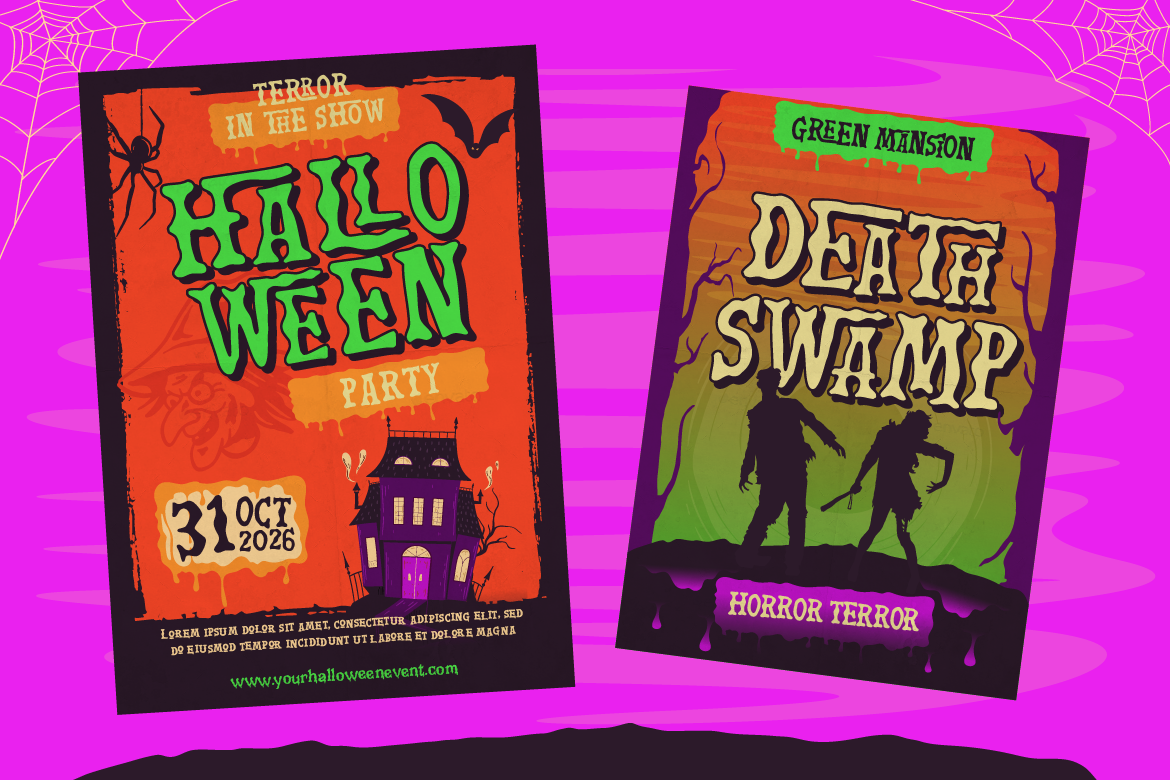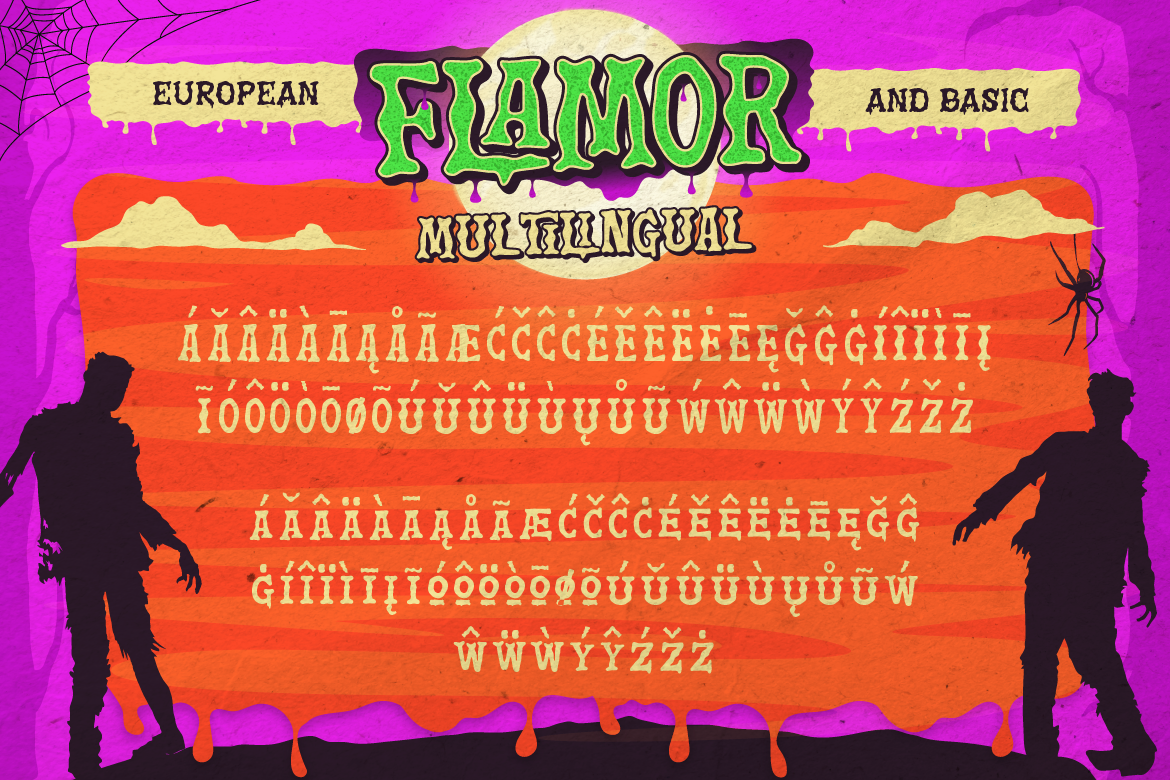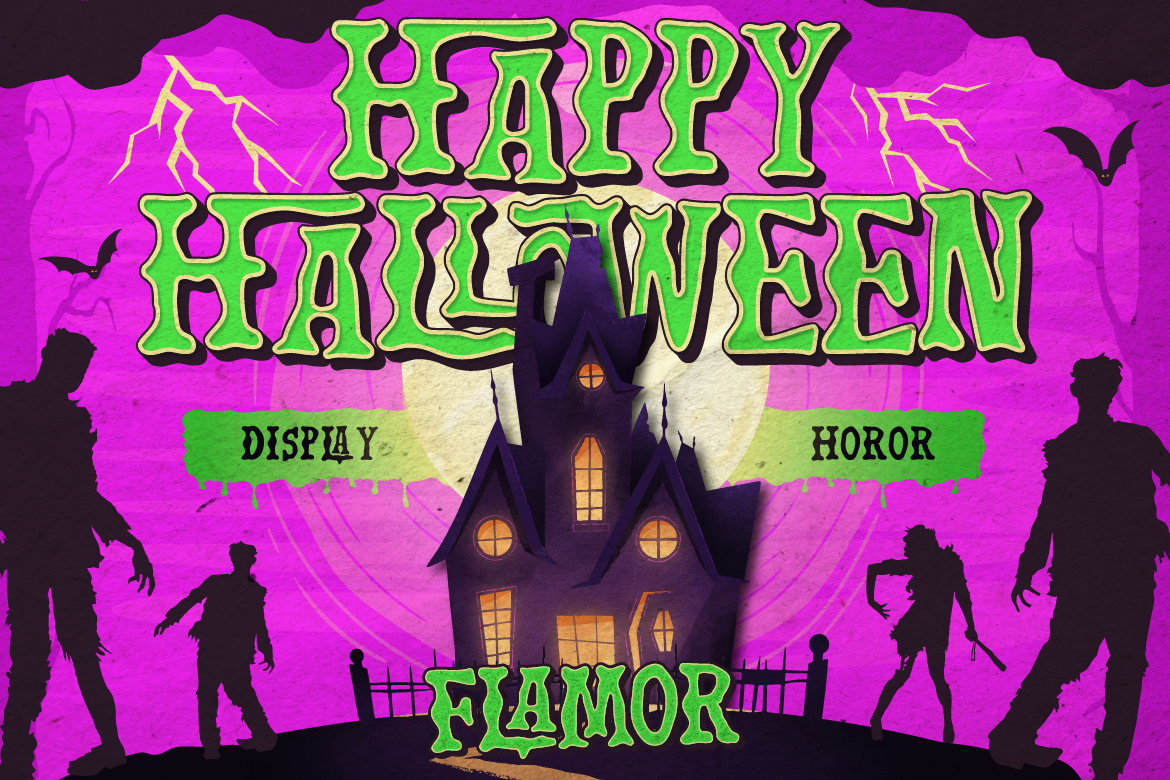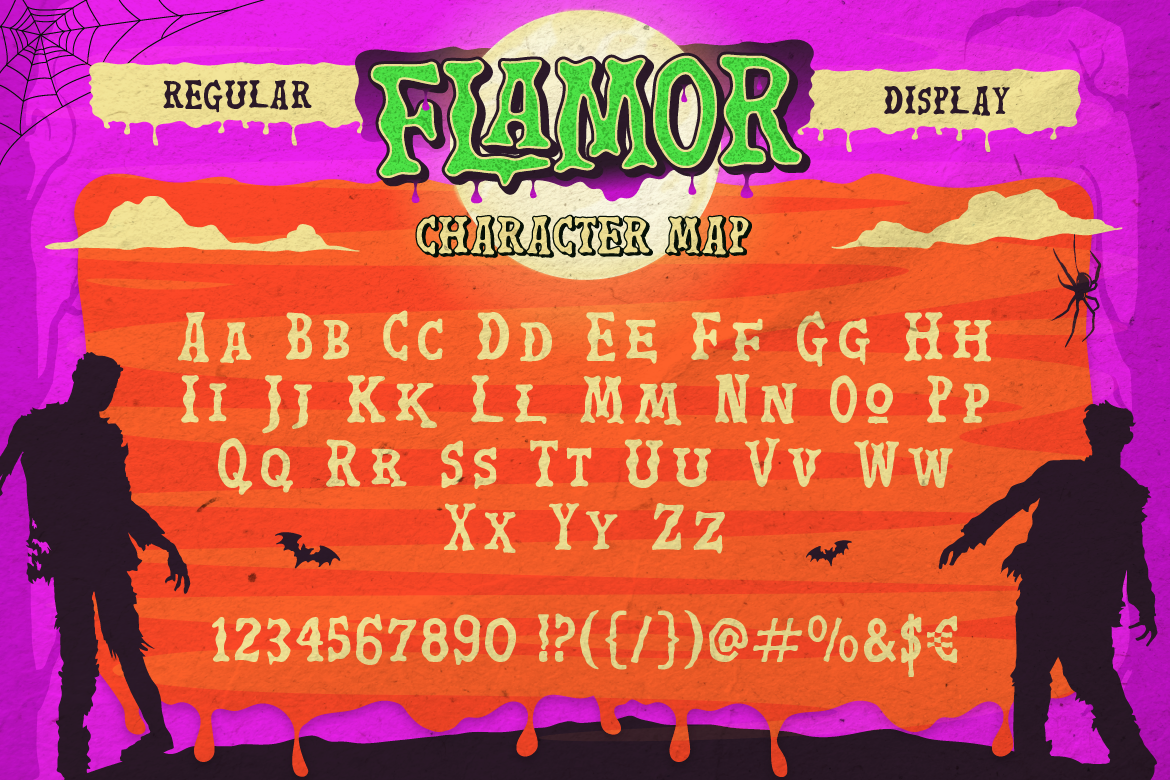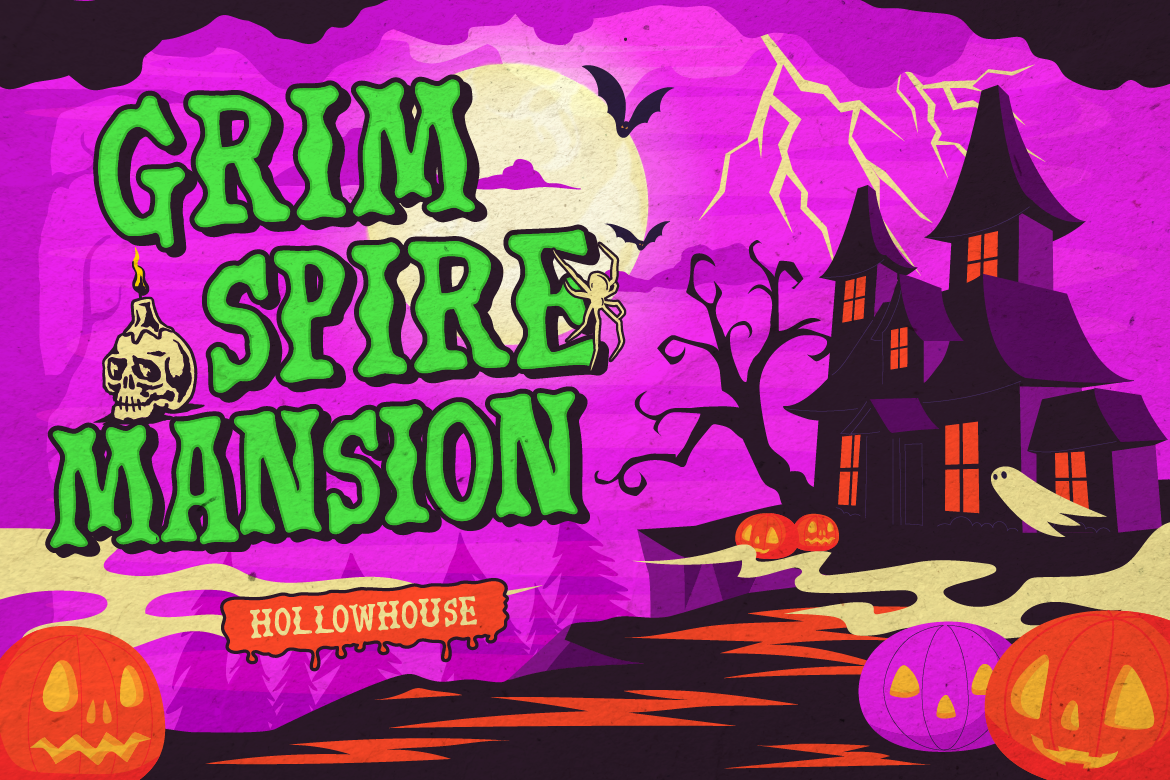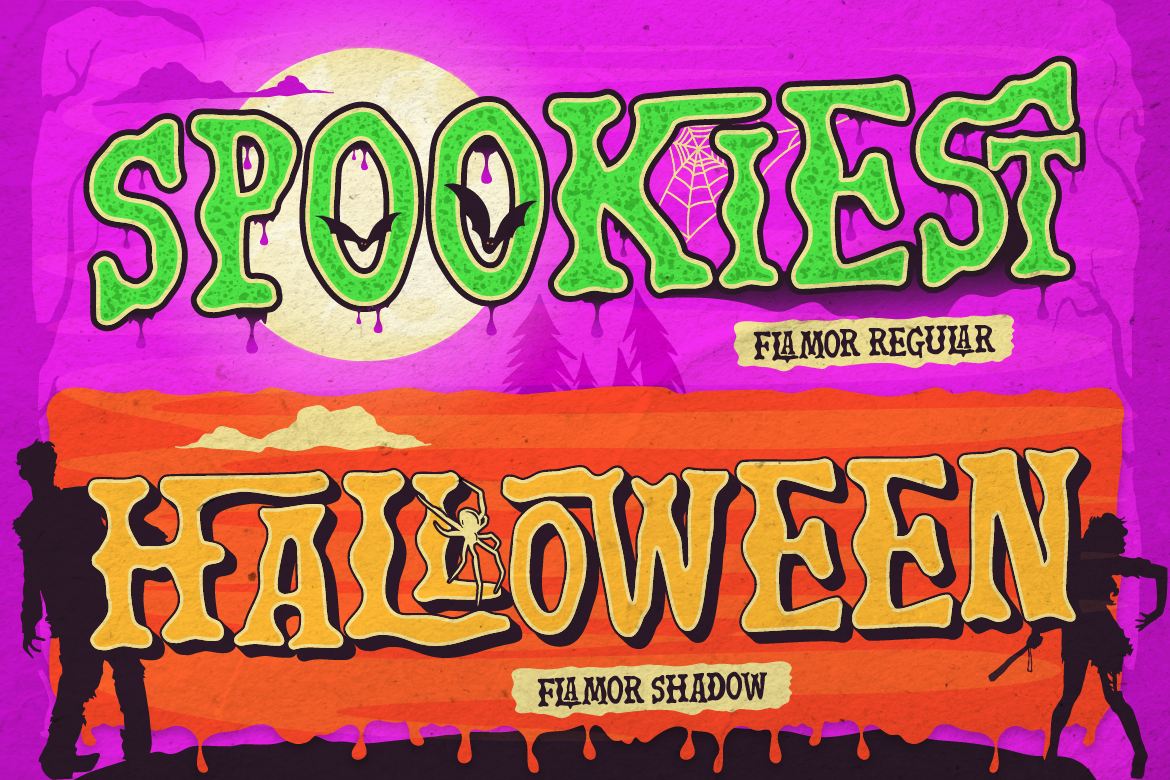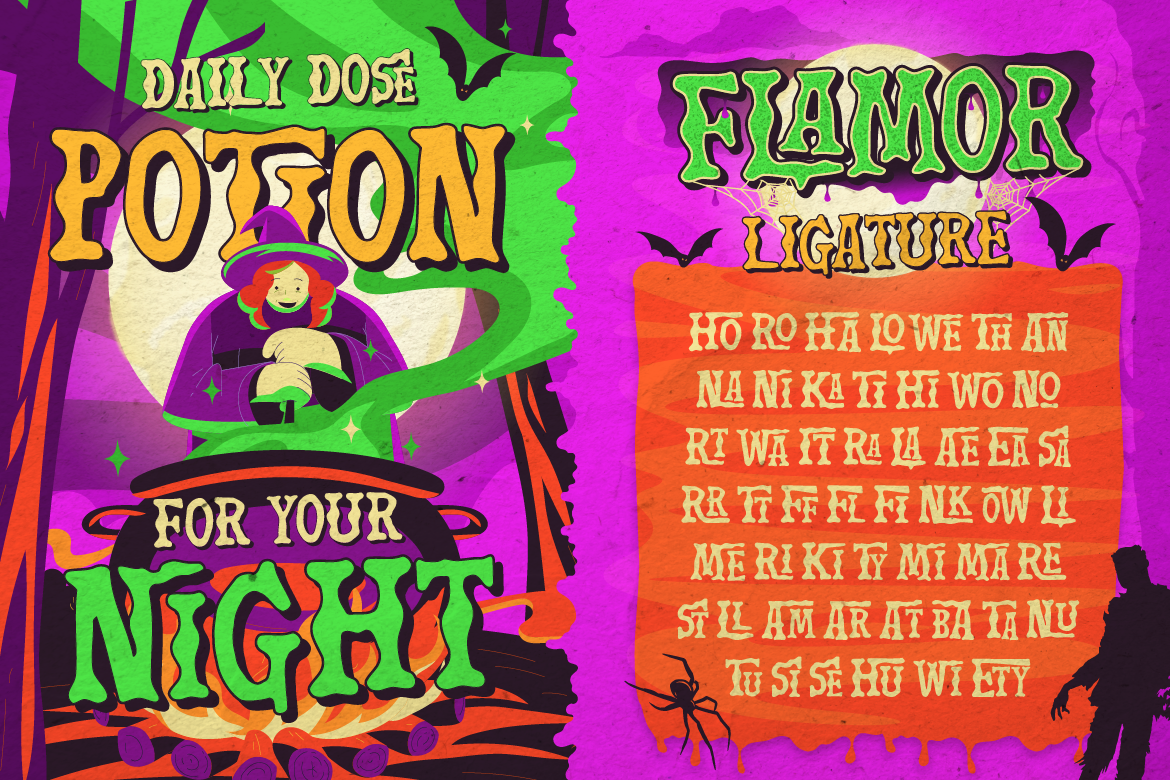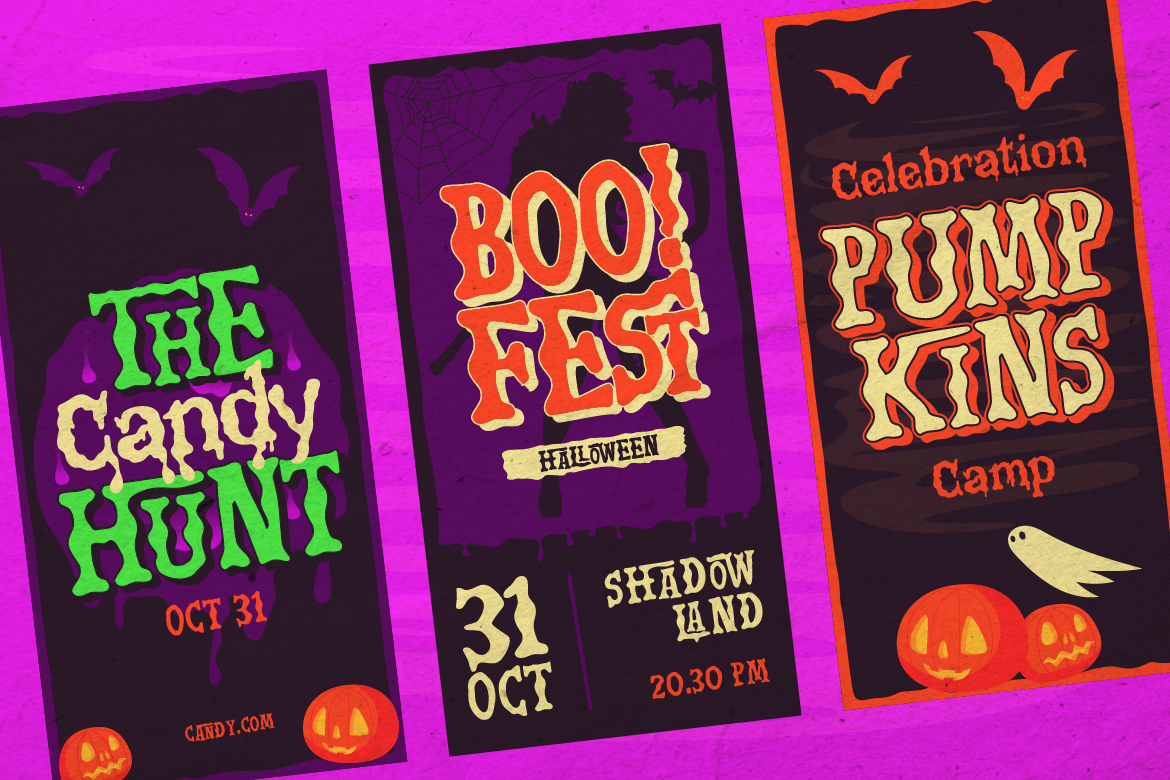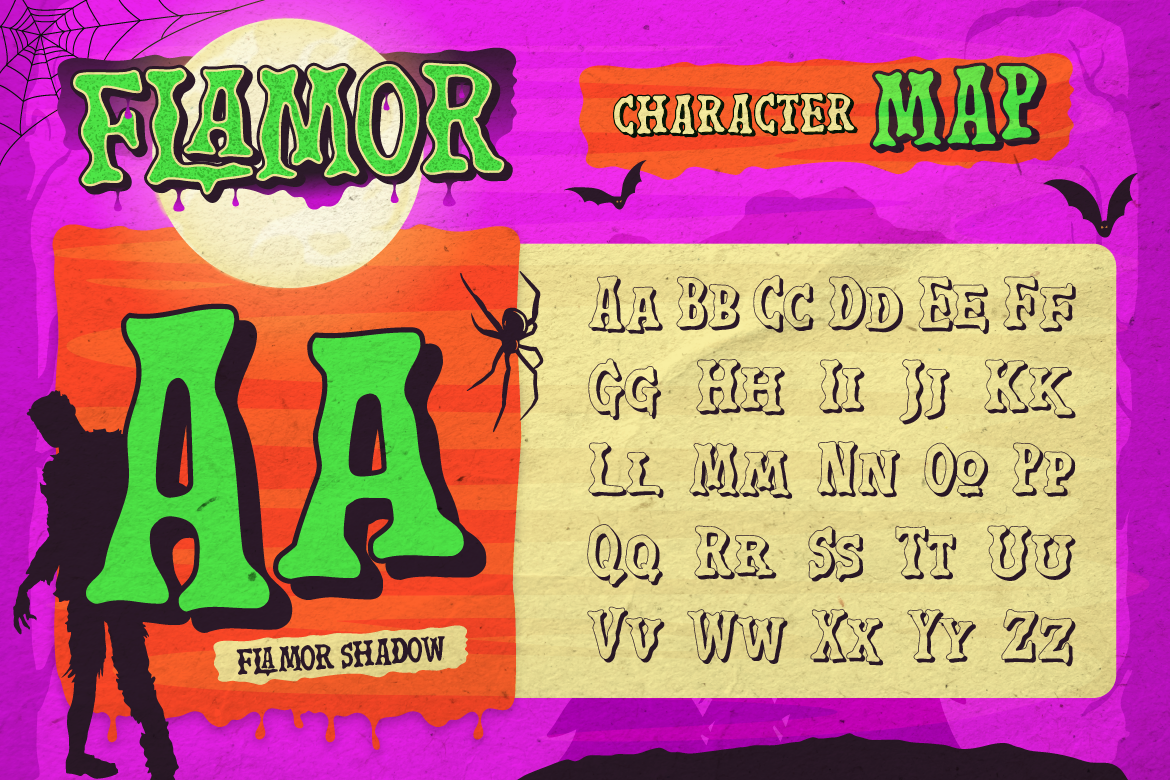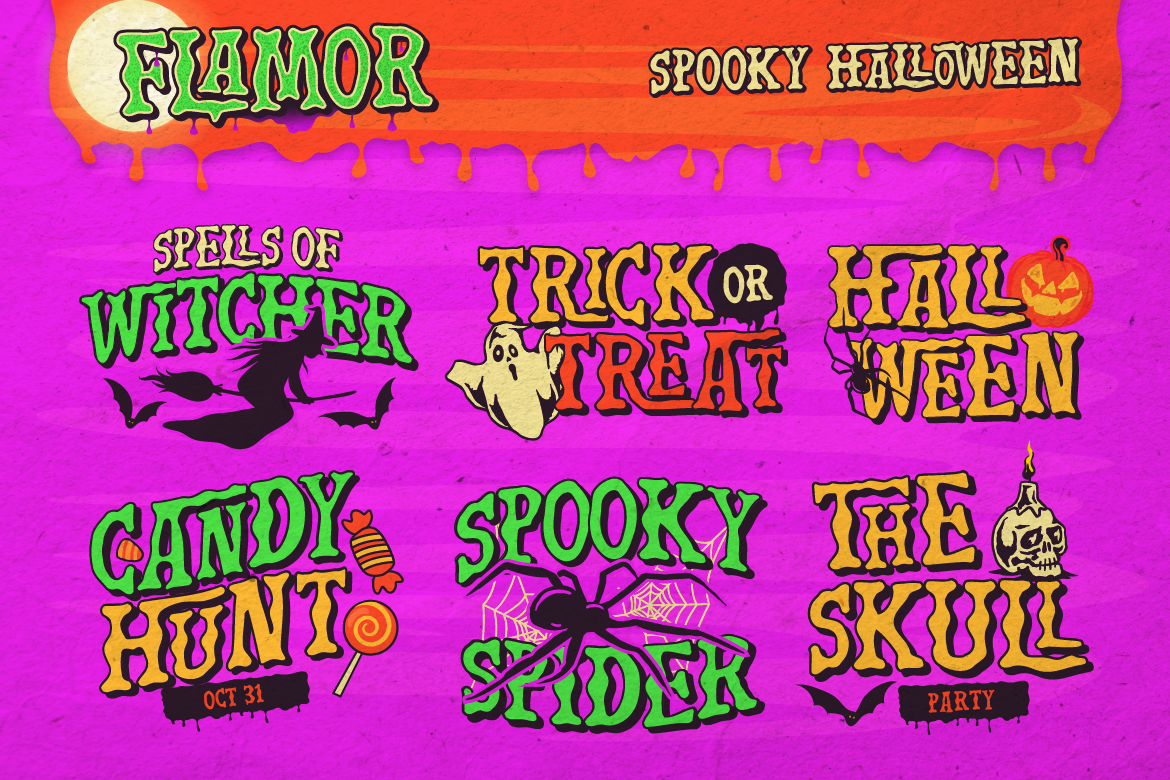
Regular
Shadow
Bring a fun, bold, and spooky vibe to your design projects with Flamor! This Halloween display font features two distinct styles (Regular and Shadow) along with unique ligatures and multilingual character support. Perfect for party posters, apparel, social media banners, stickers, and spooky branding.